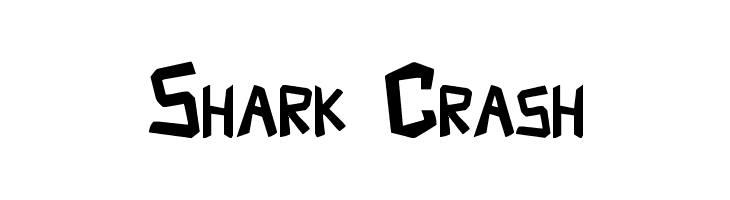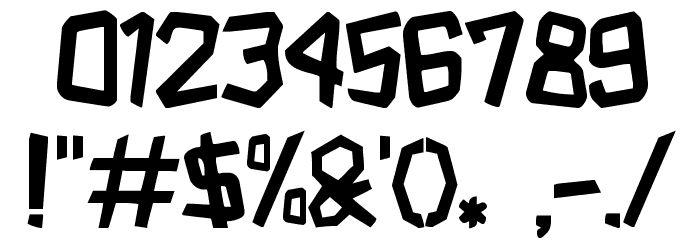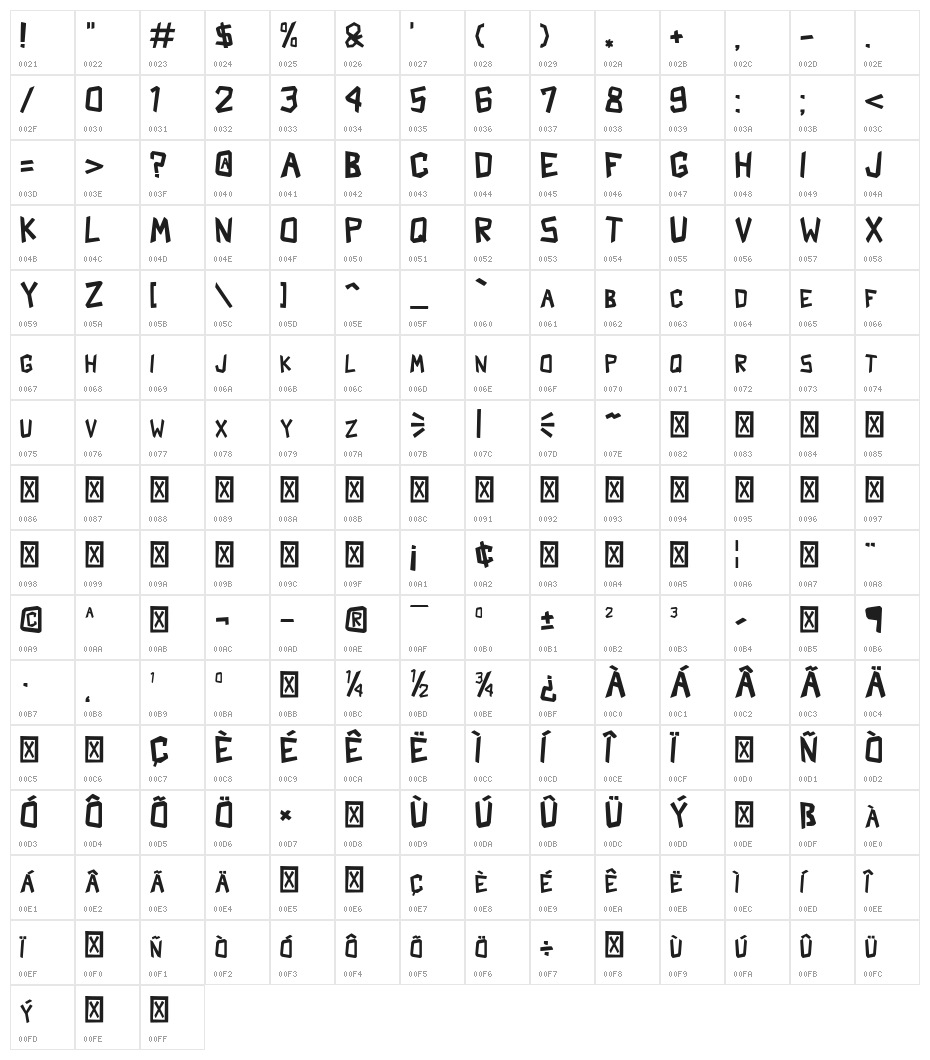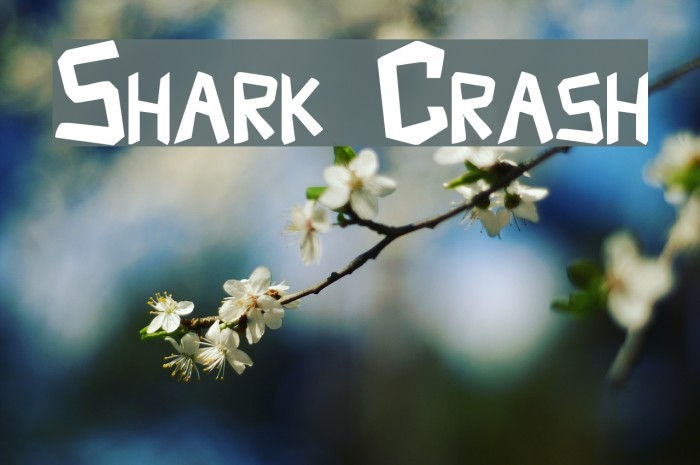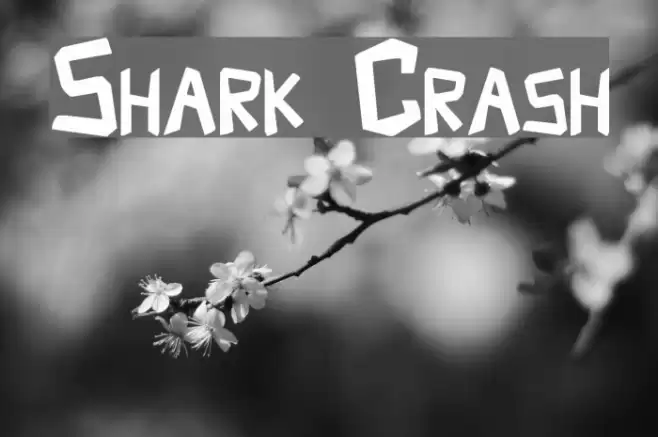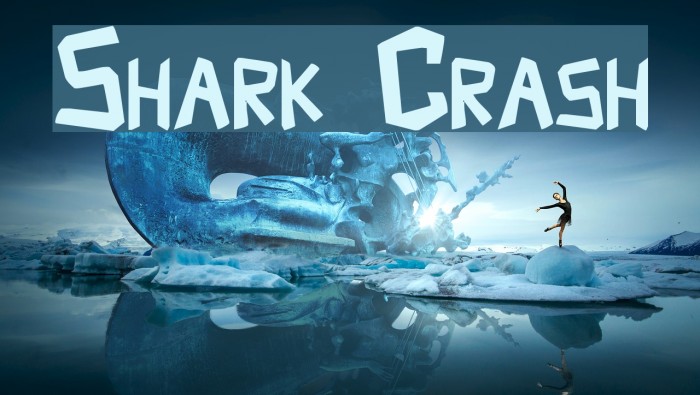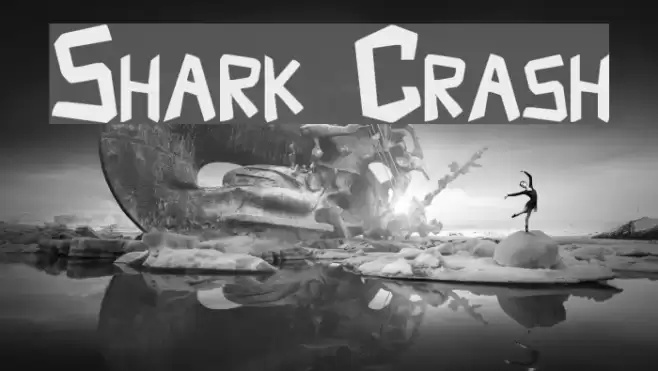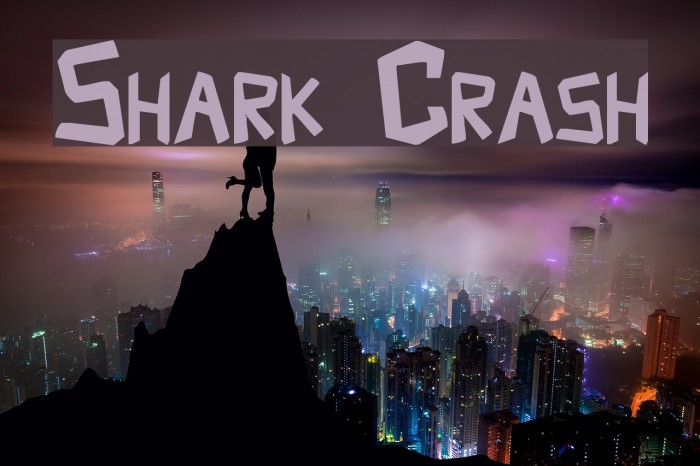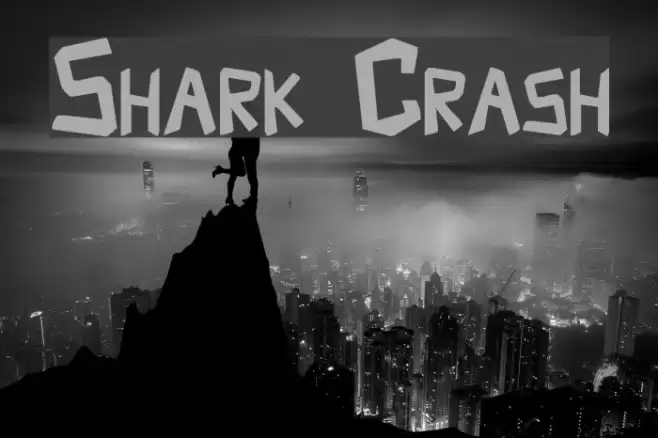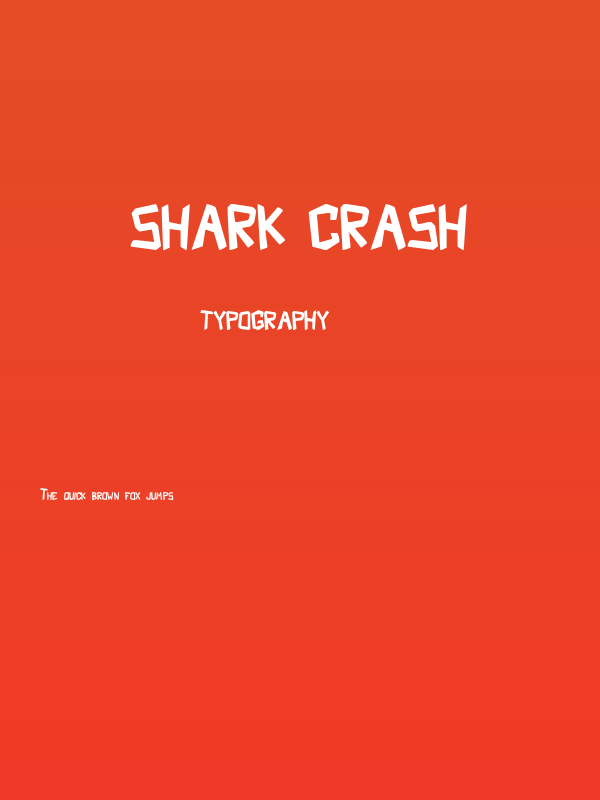
Shark Crash Font
Shark Crash Description
This font features a bold and edgy design with sharp, angular lines that give it a dynamic and energetic appearance. The characters are slightly irregular, adding a sense of movement and spontaneity. The uppercase and lowercase letters maintain a consistent style, with a playful yet aggressive look. The numbers and special characters follow the same design principles, ensuring uniformity across the font. Its unique style makes it stand out, perfect for projects that require a strong visual impact.
| Proposed Projects | Ideal for posters, video game titles, comic book covers, and branding that requires a bold statement. |